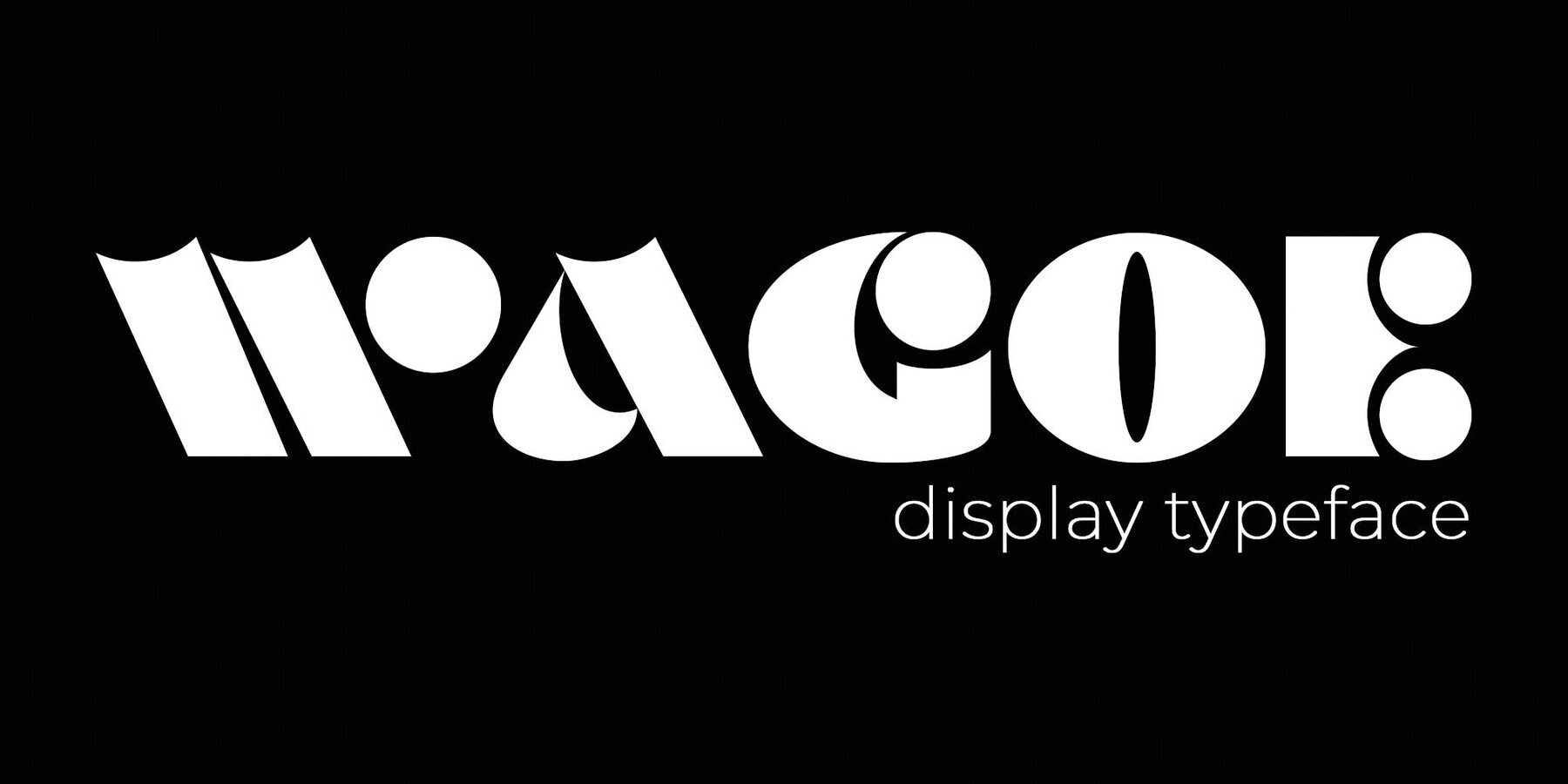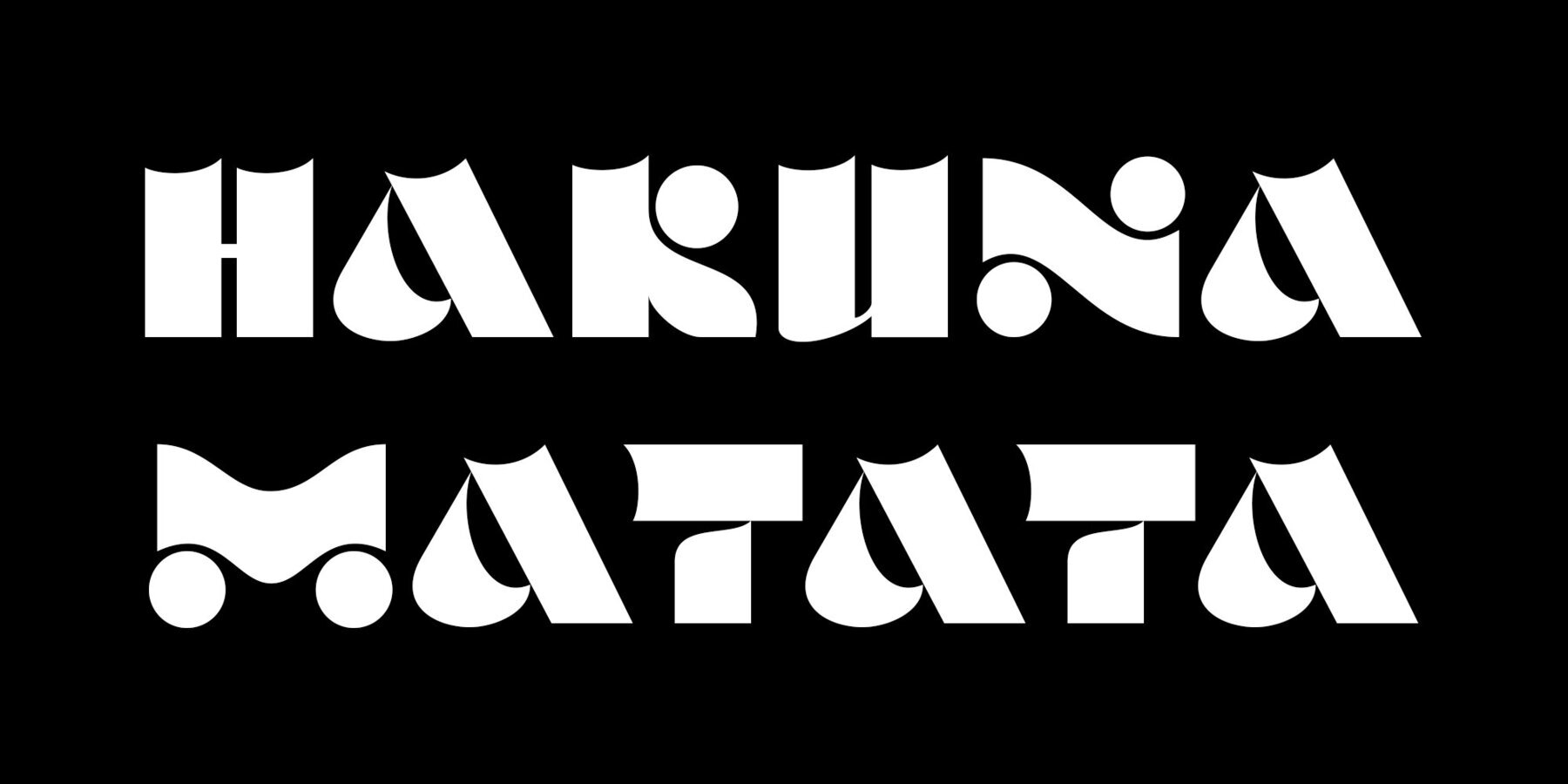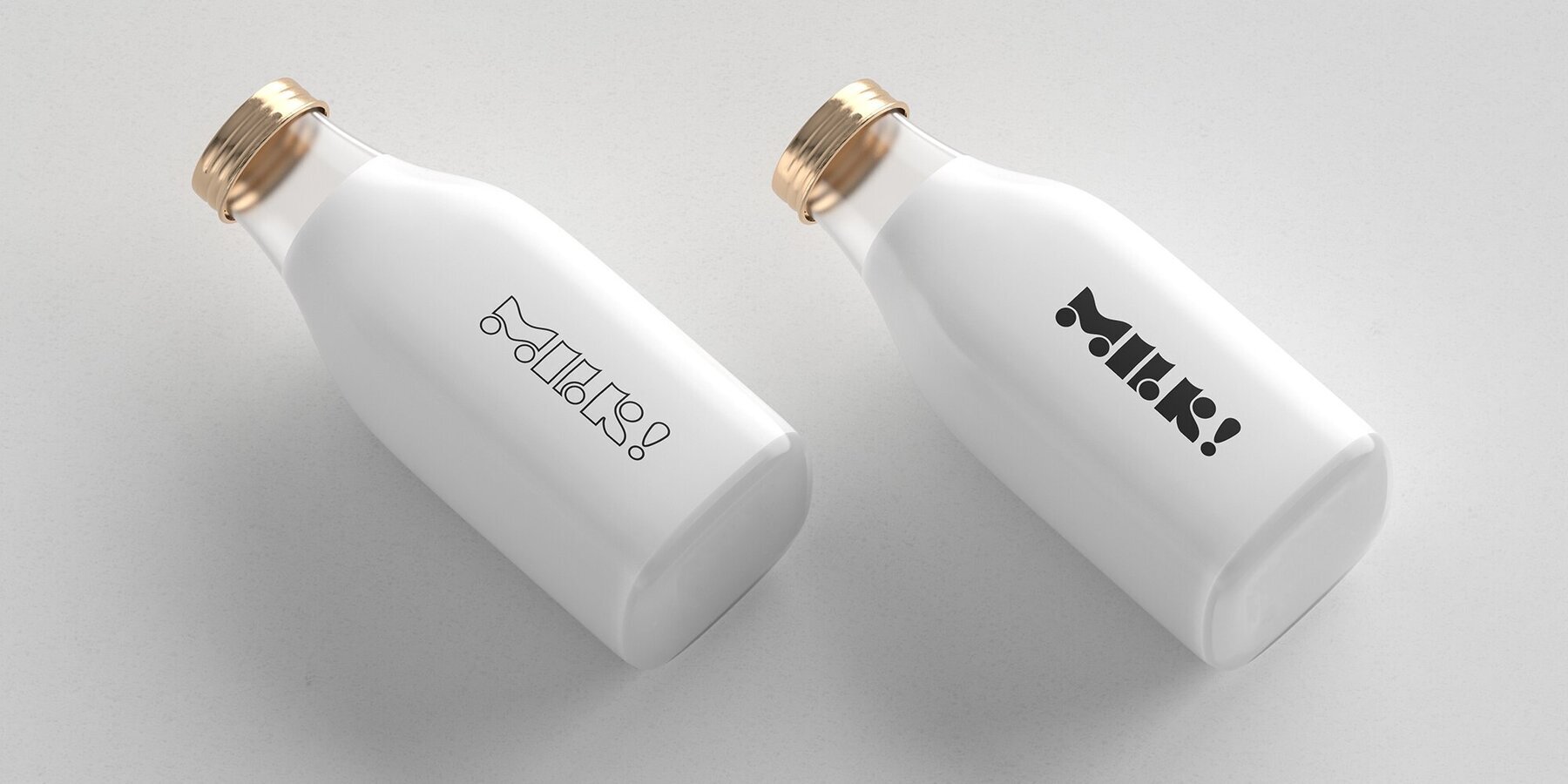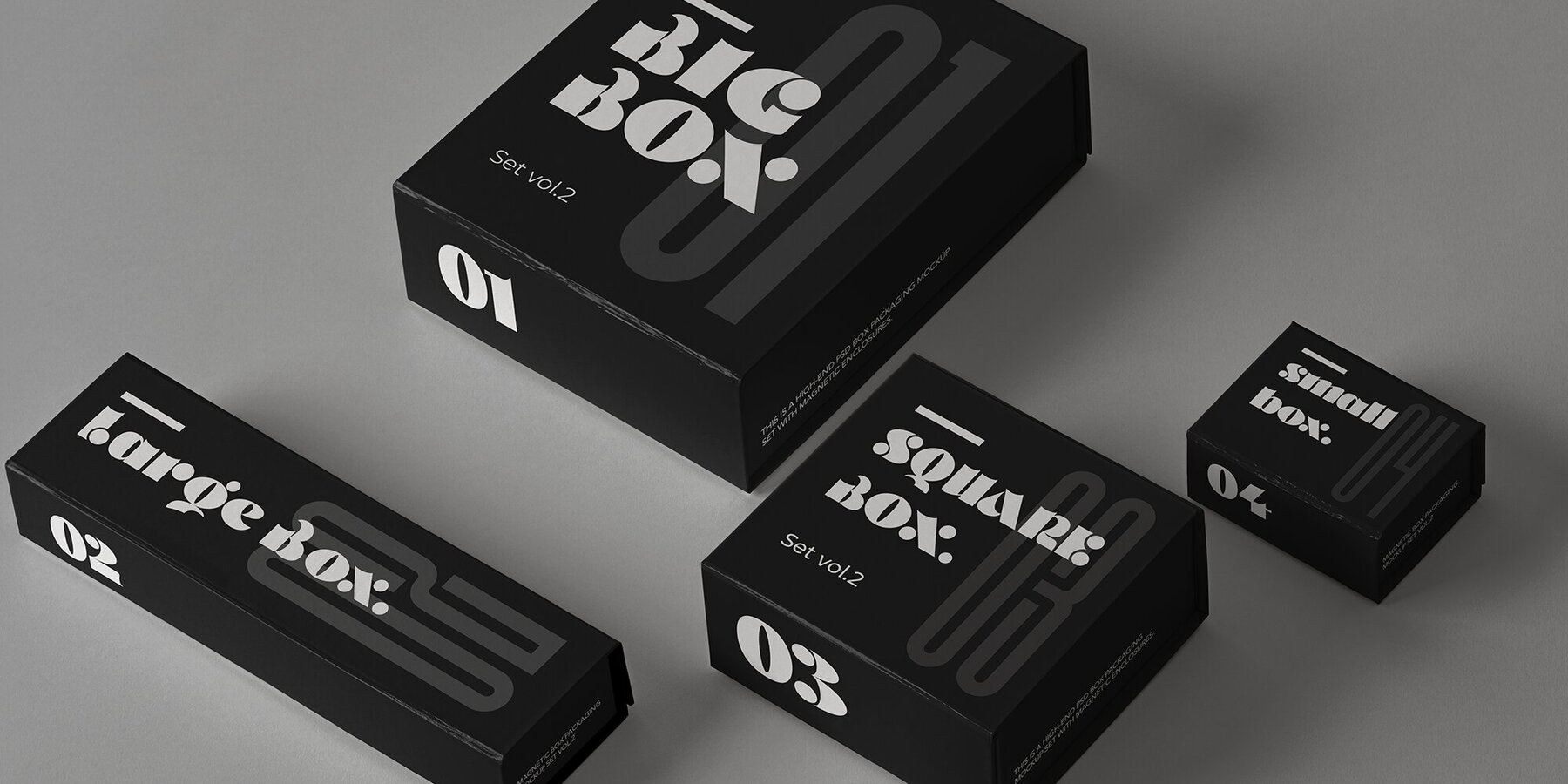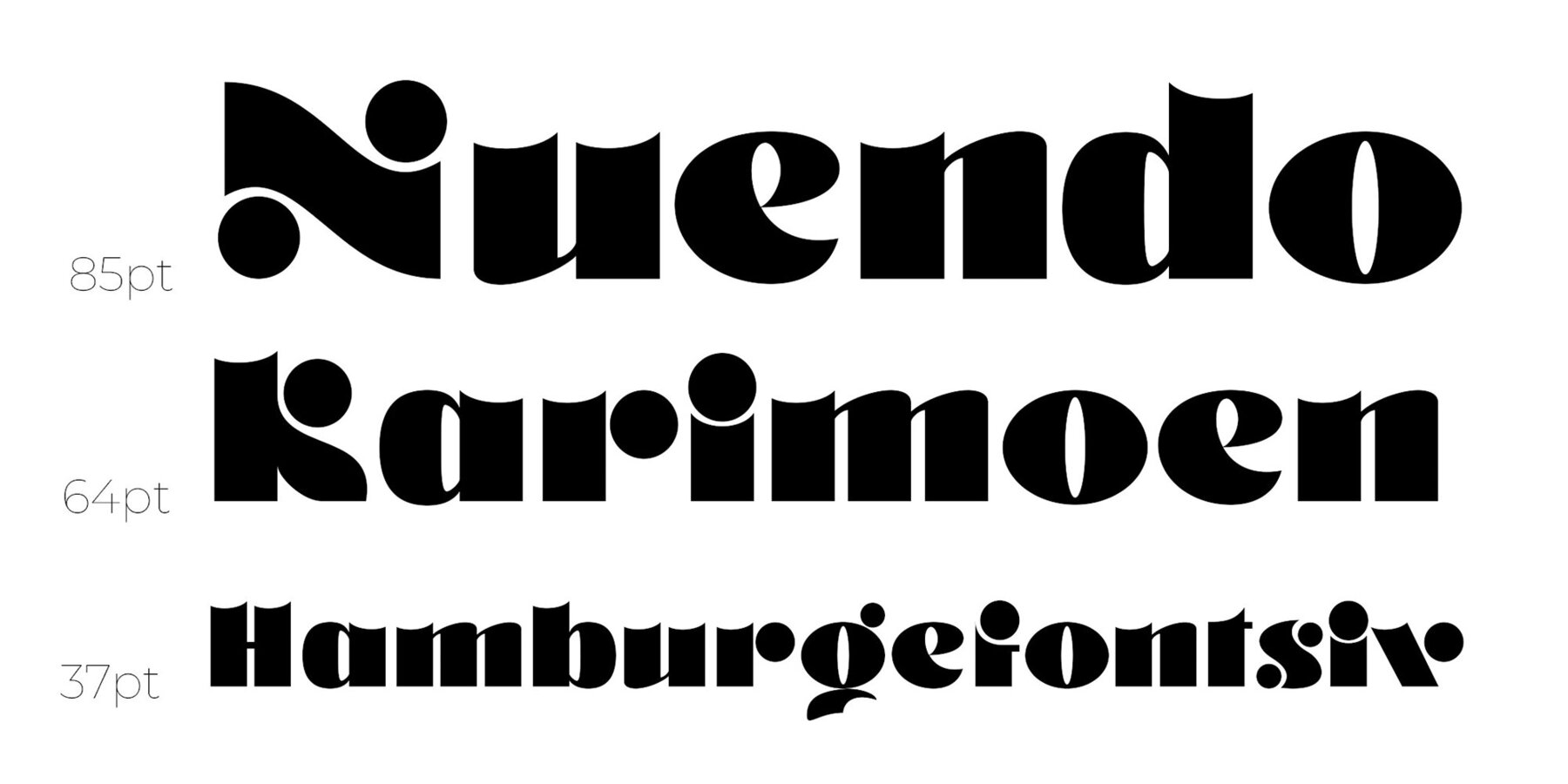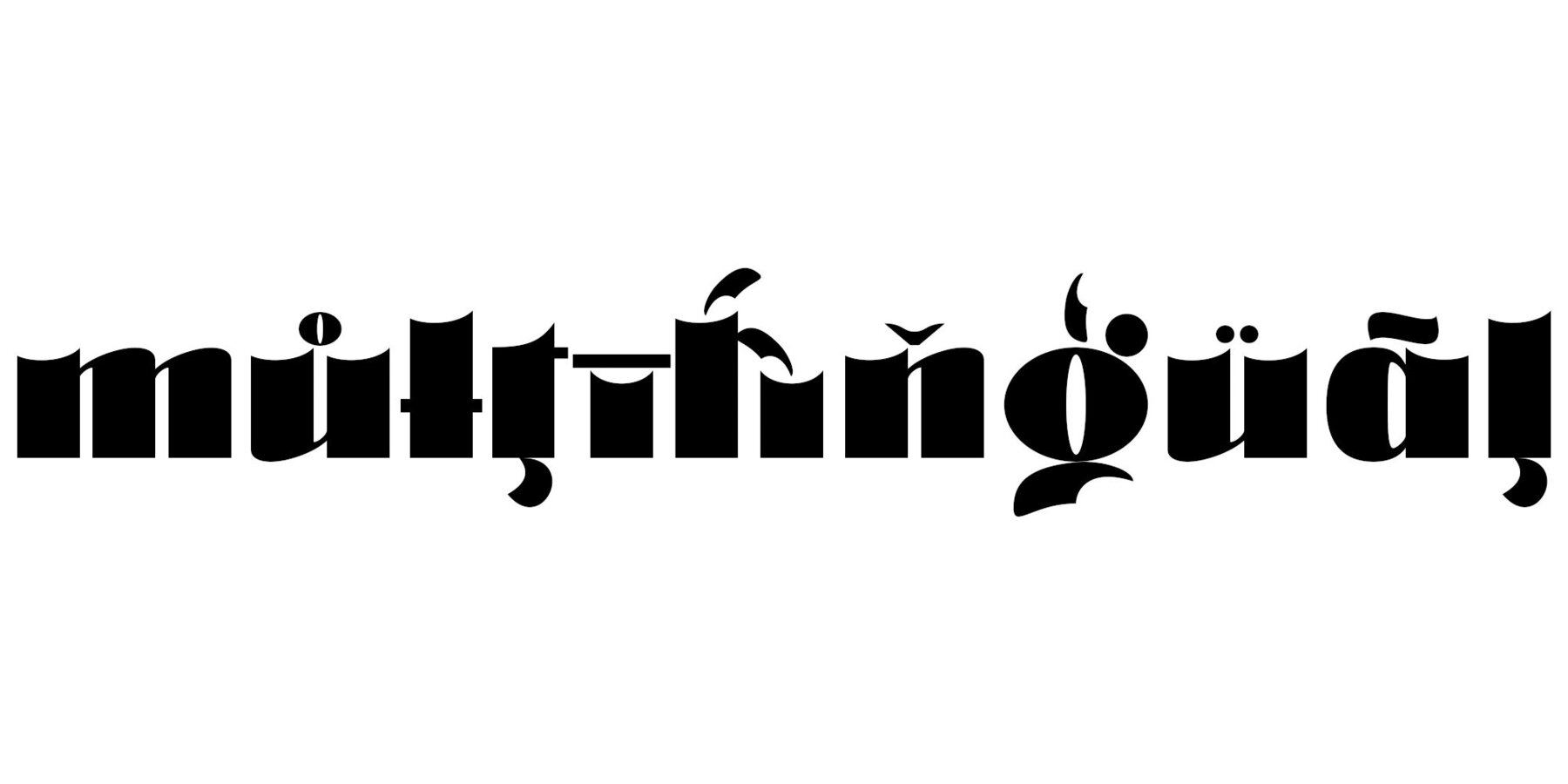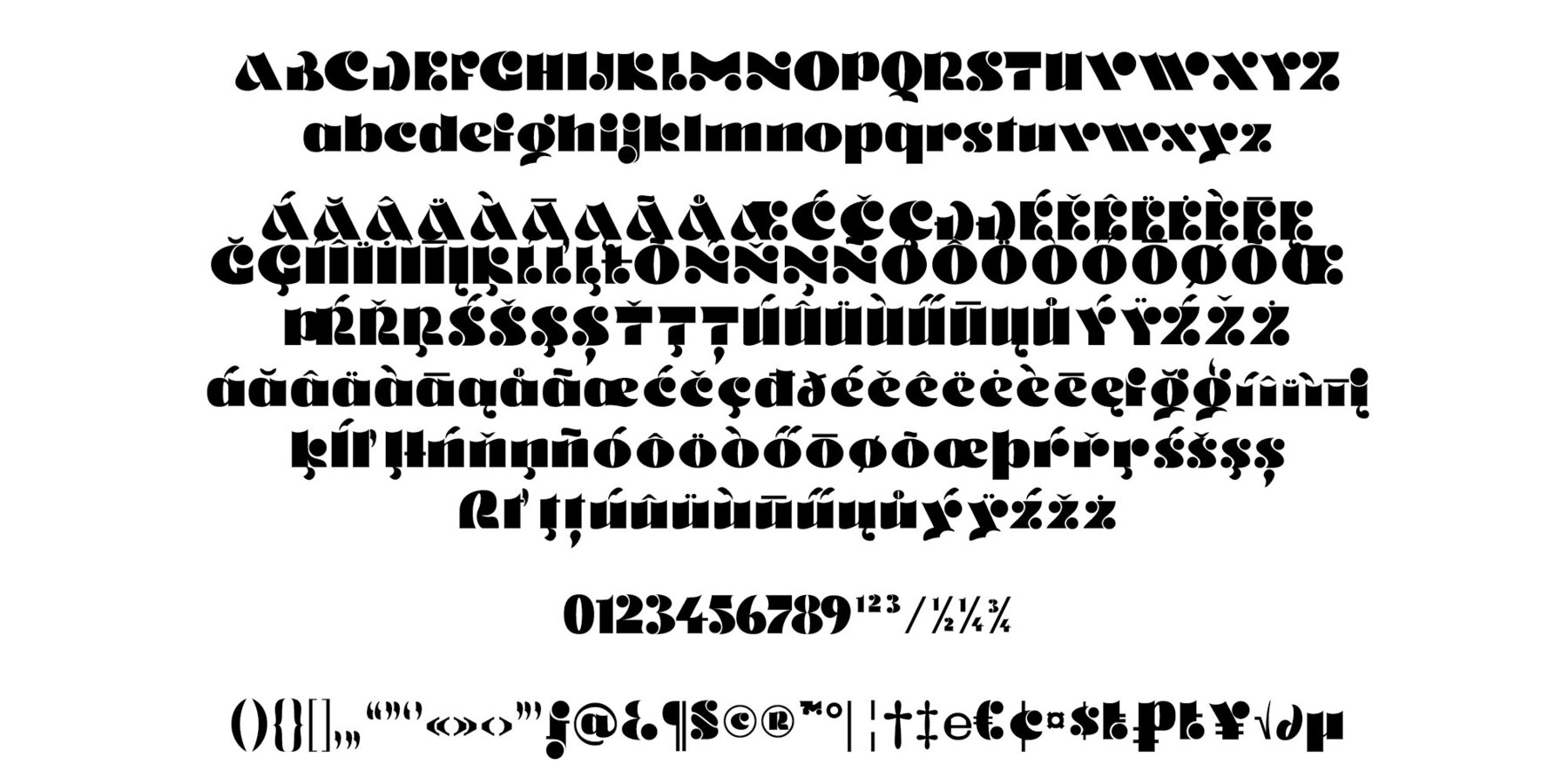
Wagoe Font
Wagoe Regular
Wagoe is a modern twist on the classic Motter Ombra typeface. The characters have been redesigned to be rounder and less rigid, yet retain a sharp and bold appearance. Ideal for headlines, branding, and layout designs, this font brings a unique and contemporary flair to any project.
Key features include a complete set of uppercase and lowercase letters, numerals, symbols, and punctuation marks. Wagoe also supports multiple languages with its accented characters, making it a versatile choice for diverse design needs.